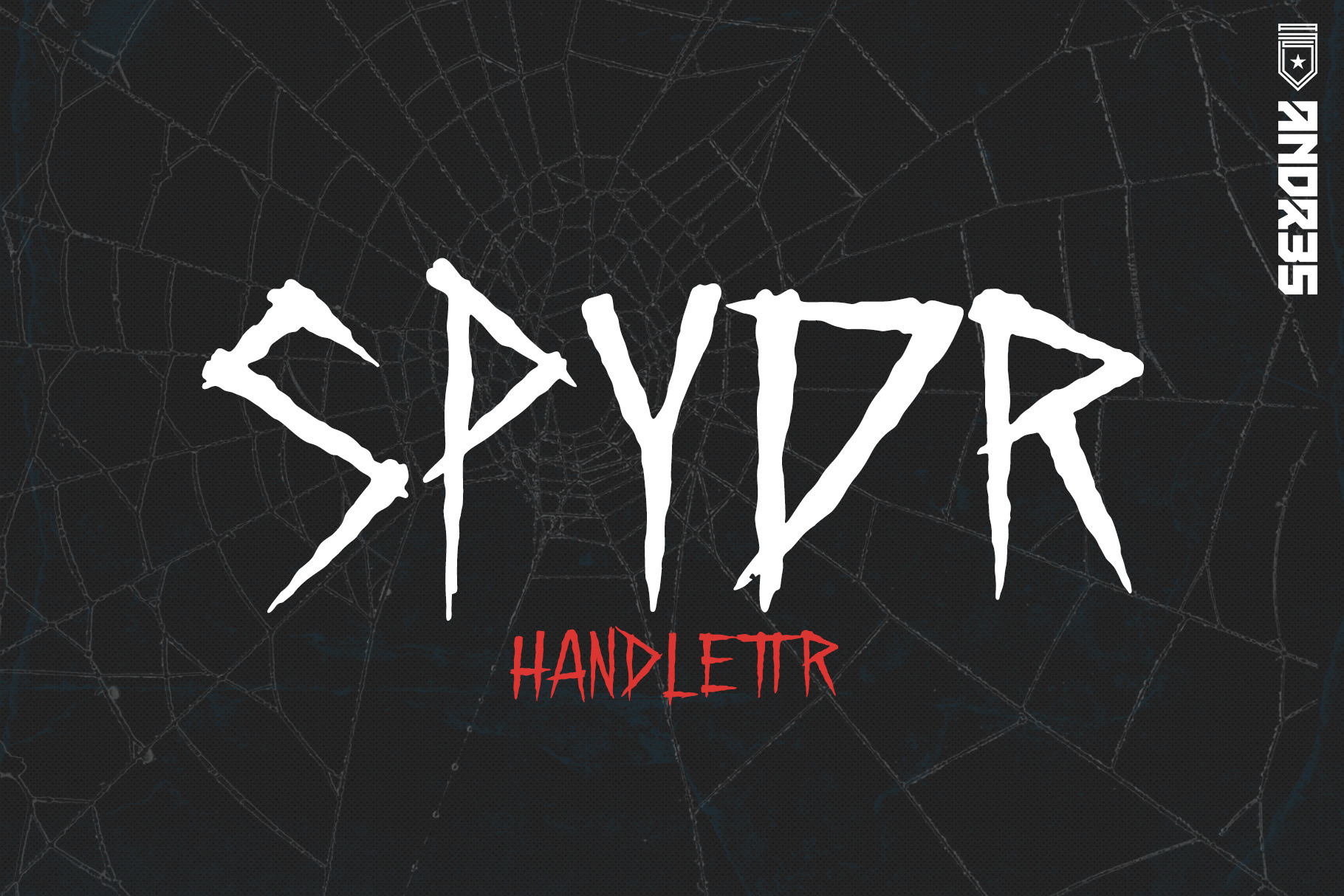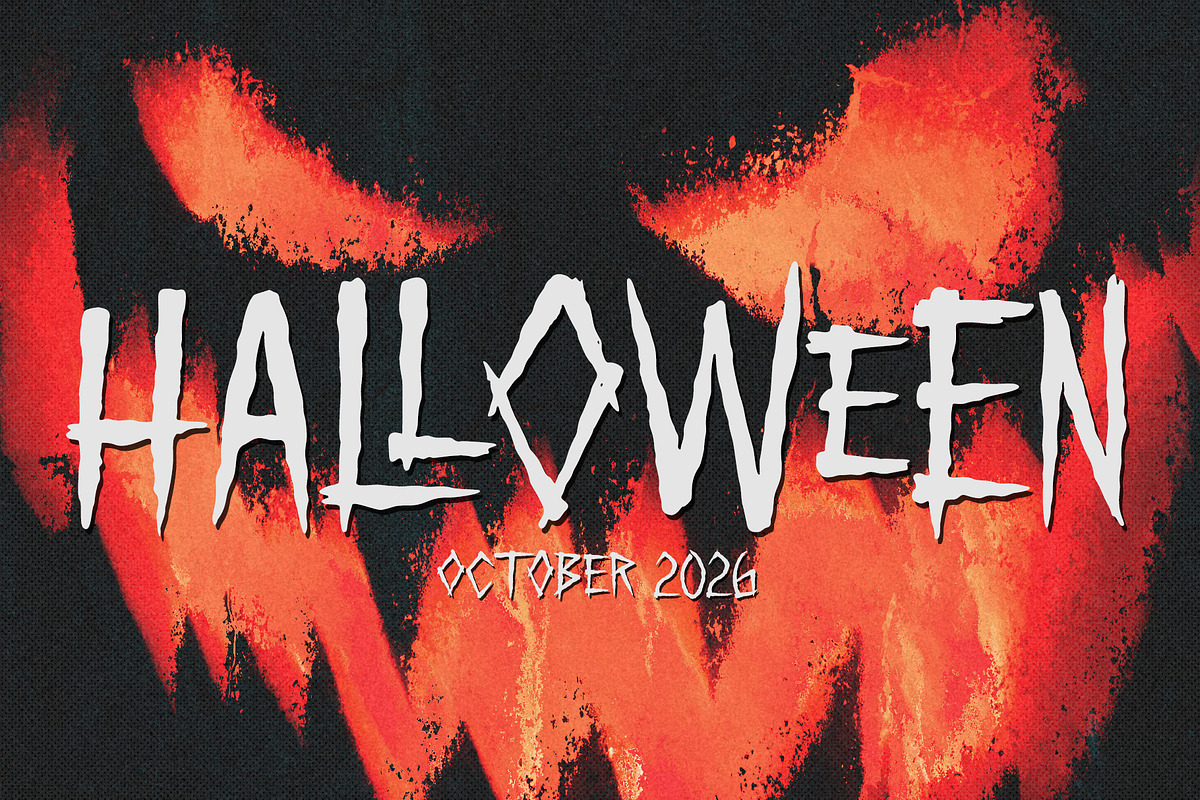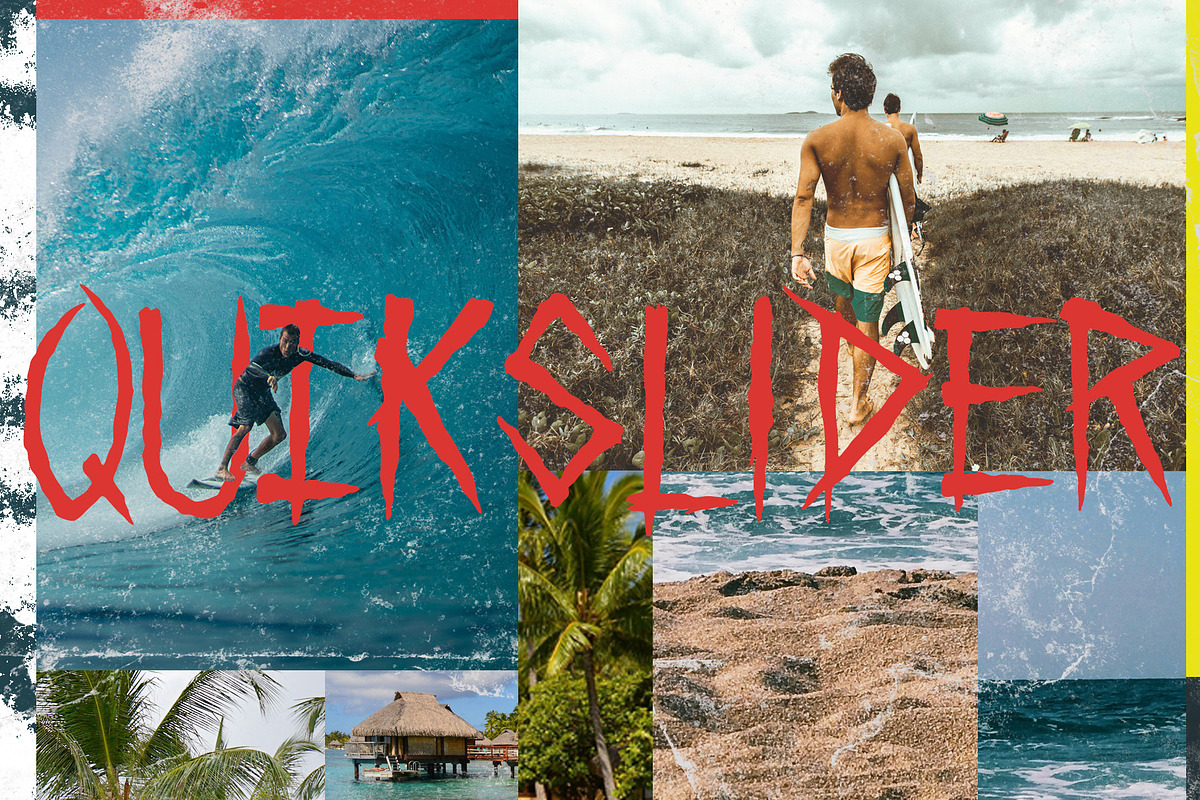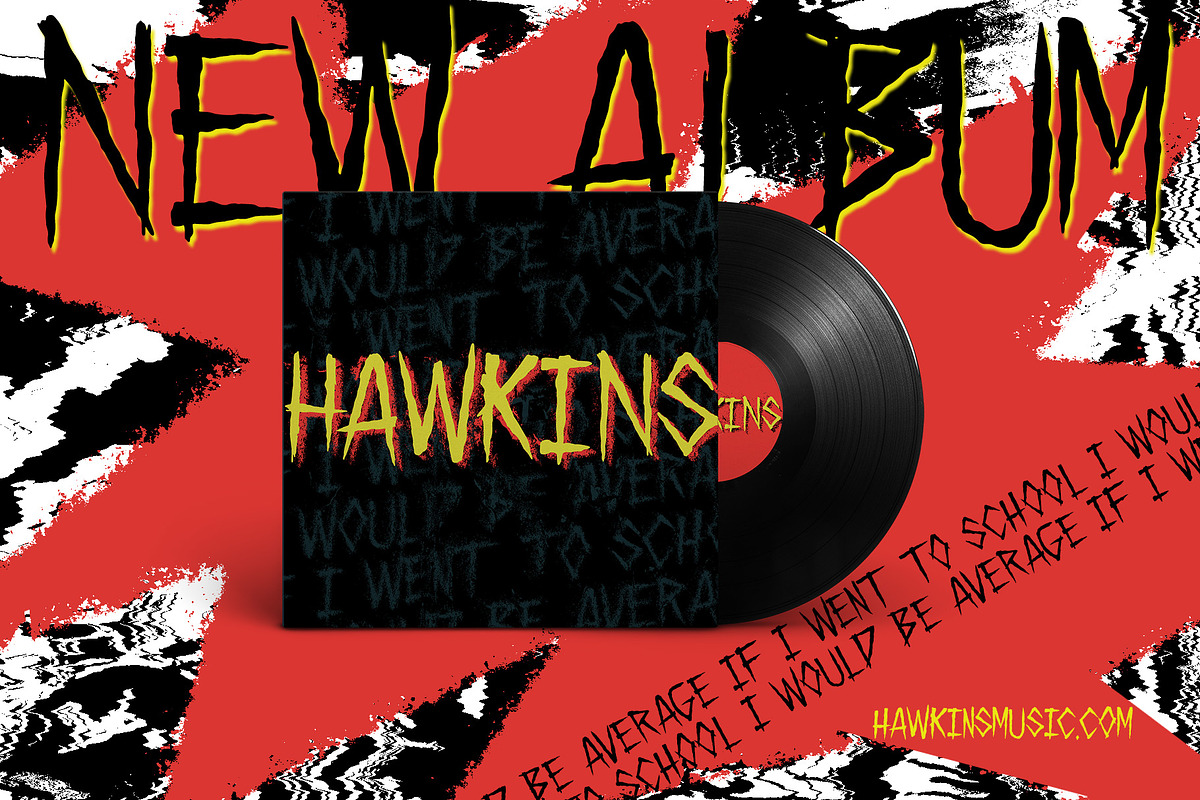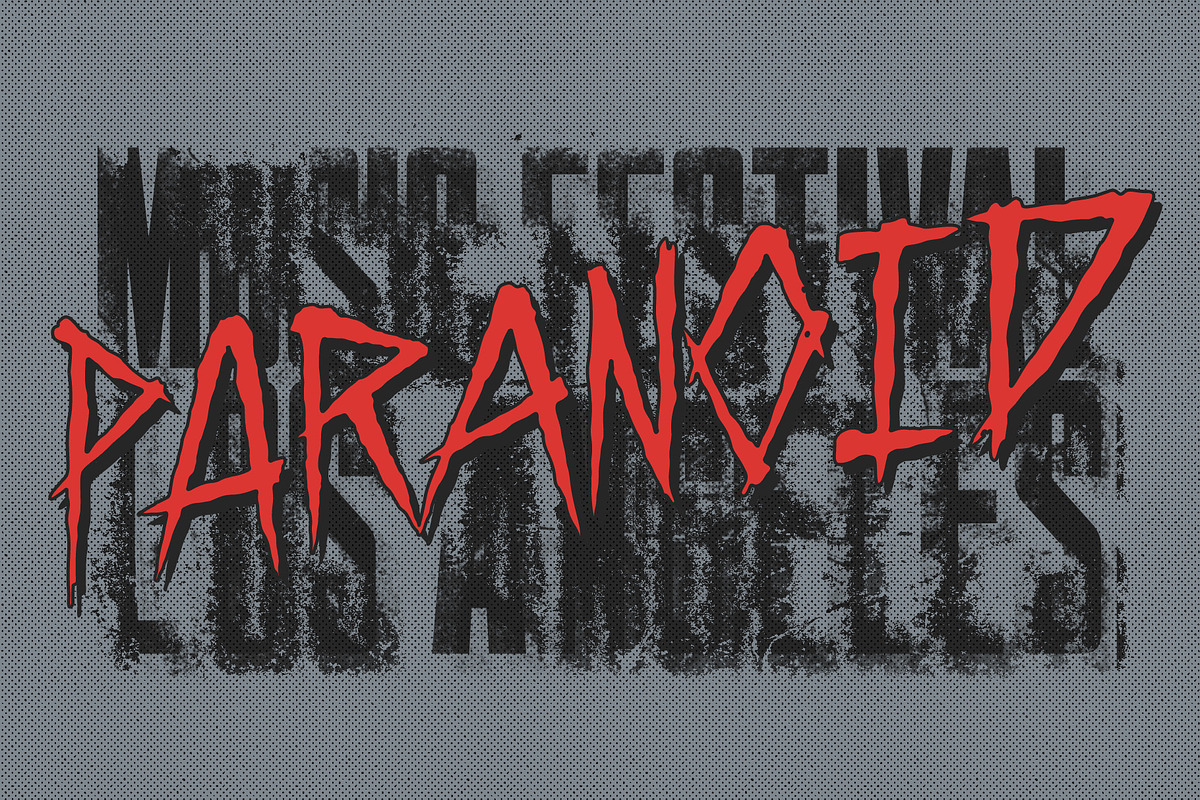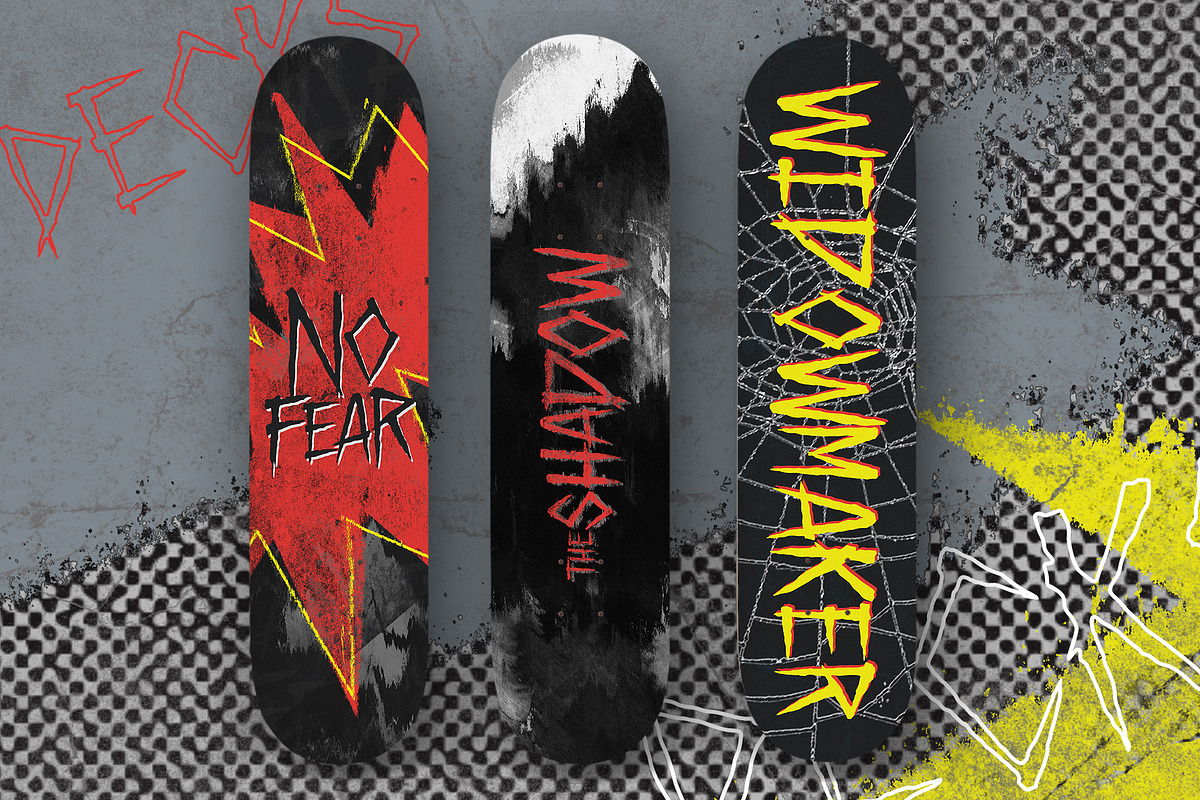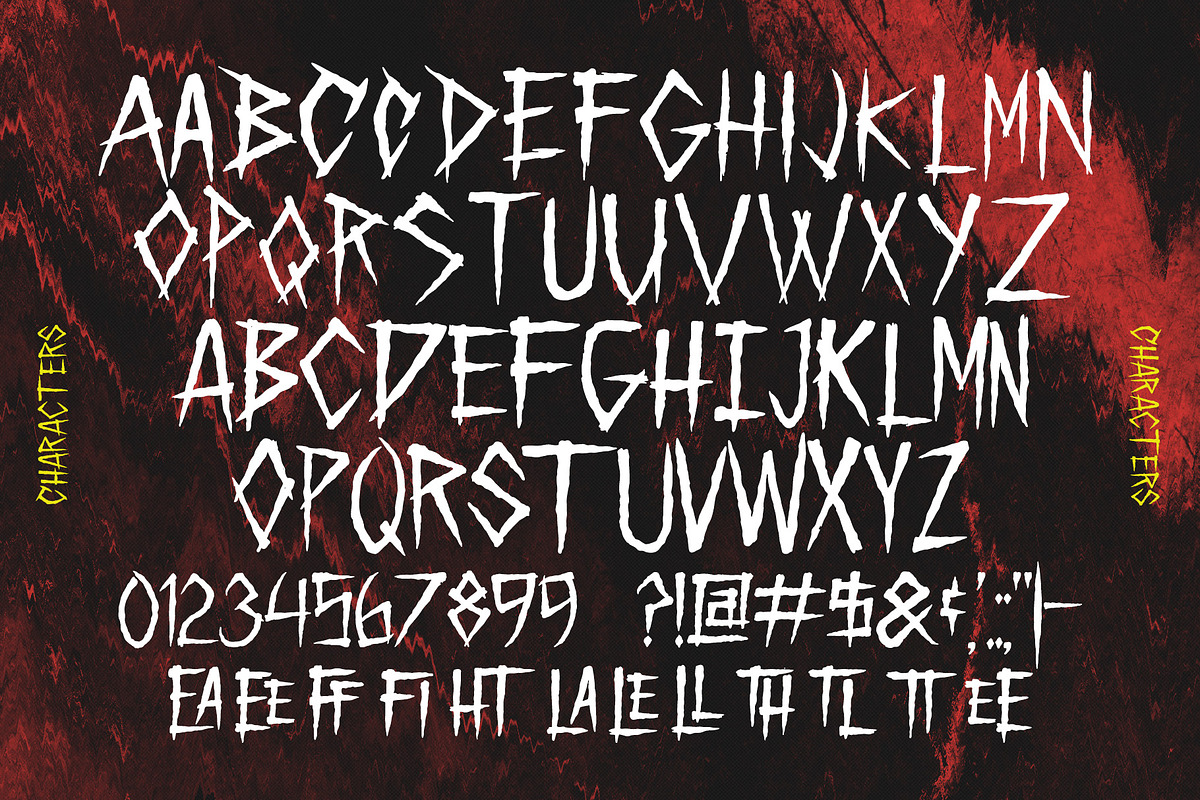
SPYDR: Hand-drawn Display font
SPYDR is heavily inspired by 80s horror movie titles, punk rock, and classic skateboarding visuals.
I’ve wanted to explore more of this gritty style for a while and finally sat down to draw the entire font from scratch in Procreate. With the design world getting flooded with hyper-polished visuals, there’s a growing appreciation for genuine hand-drawn work over something sterile and perfect.
SPYDR is built for high-impact headlines - especially across movie posters, streaming titles, editorial zines, skate decks, band merch, and streetwear. It’s definitely a "raging" font rather than a calm one. If your project calls for something raw, aggressive, or chaotic, SPYDR is built for the job.
All-Caps Formatting: Designed as an “all-caps” typeface (type in uppercase and lowercase keys).
Alternate Glyphs & Contextual Ligatures: Limited alternate glyphs and ligatures to give your text that organic, custom hand-lettered feel where no two letters are identical.